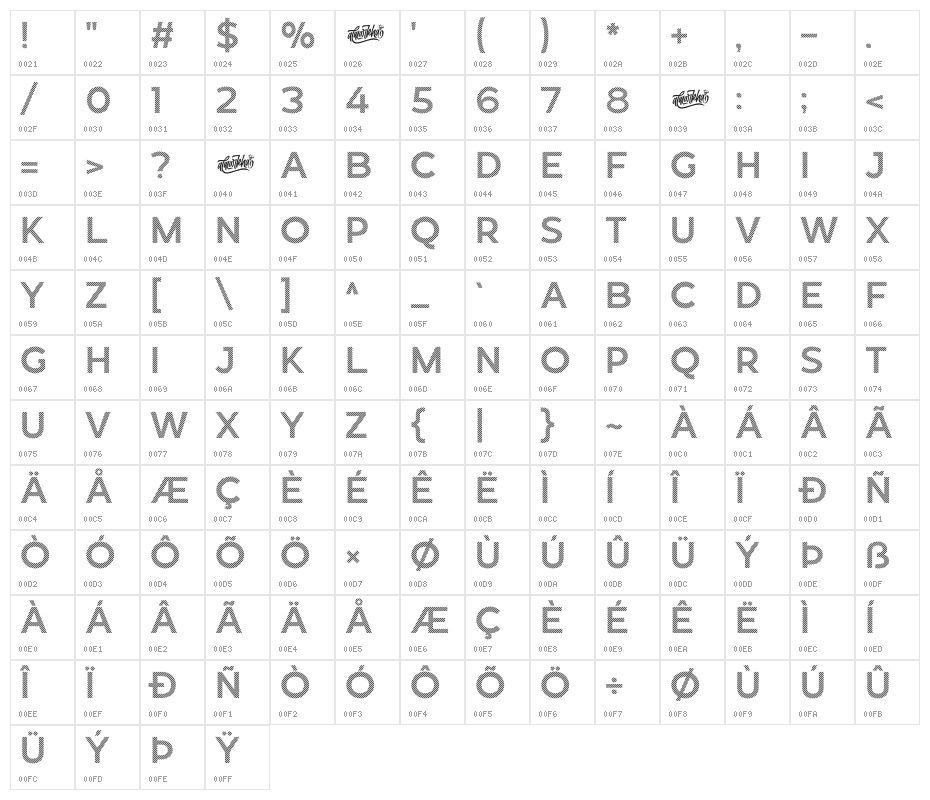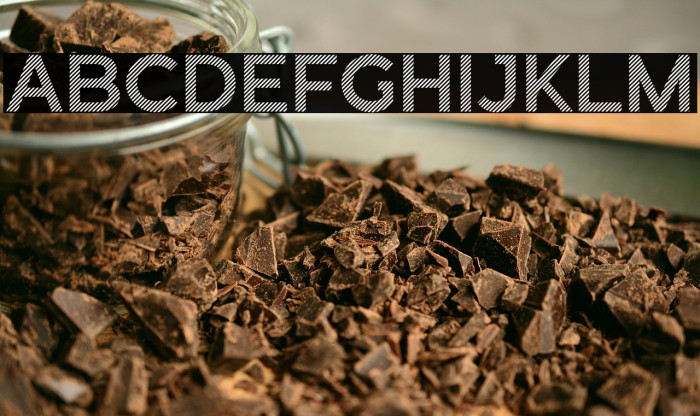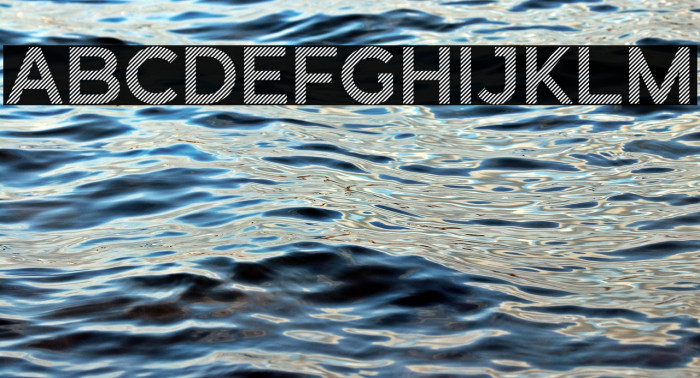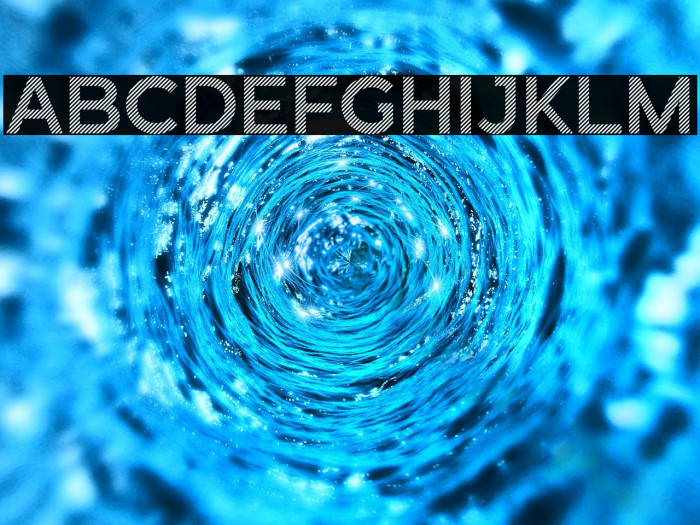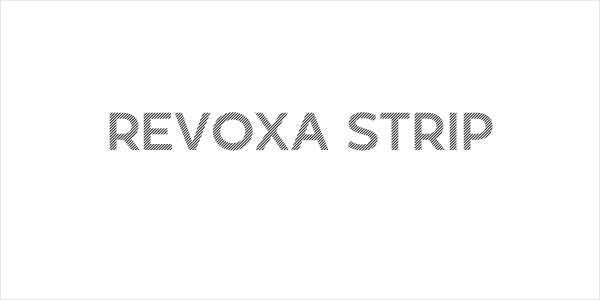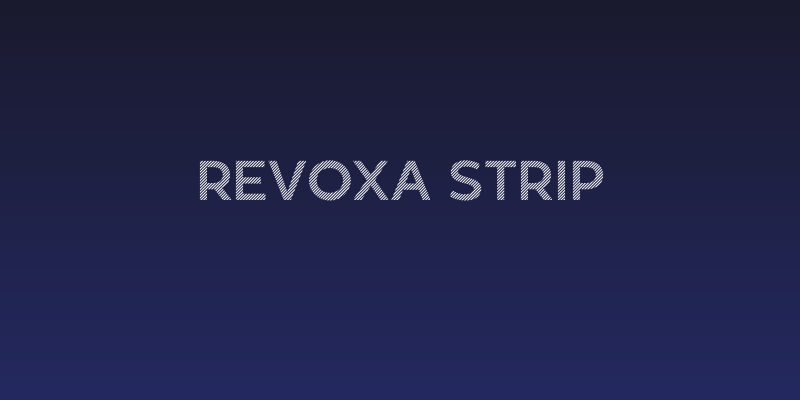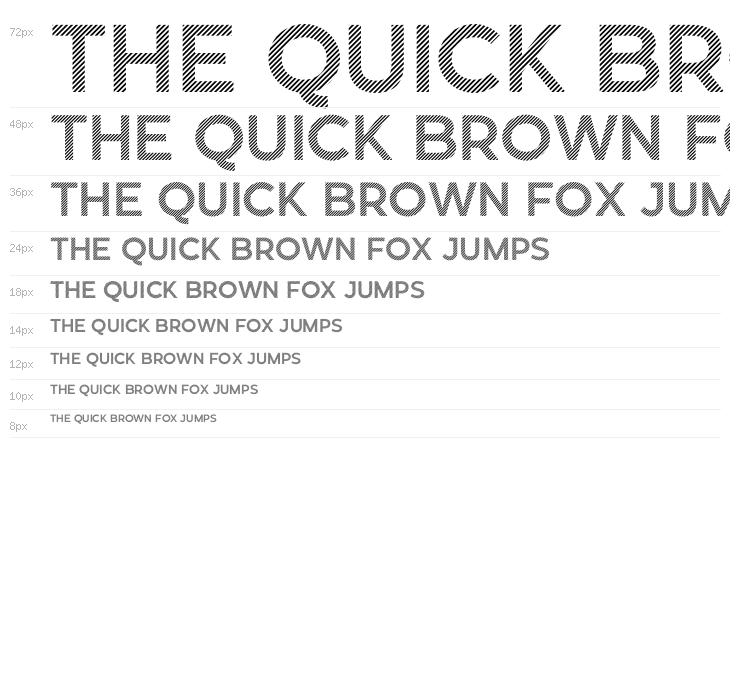
Revoxa Strip Font
Revoxa Strip Description
This font features a unique striped pattern across each character, giving it a dynamic and textured appearance. The uppercase and lowercase letters are bold and evenly spaced, maintaining a consistent width throughout. The numbers and special characters follow the same design, ensuring uniformity across all elements. The diagonal stripes add a sense of movement and modernity, making it stand out in any design. This font is ideal for projects that require a bold statement with a touch of creativity.
| Proposed Projects | Ideal for branding, posters, headlines, and any design needing a bold, eye-catching font. |